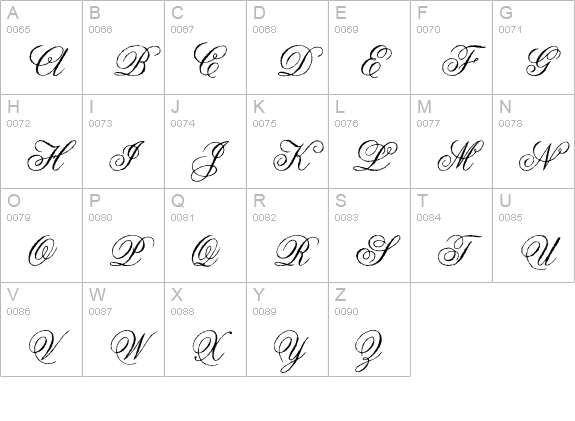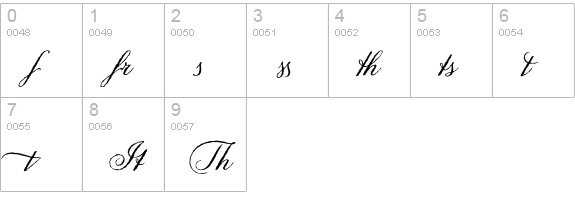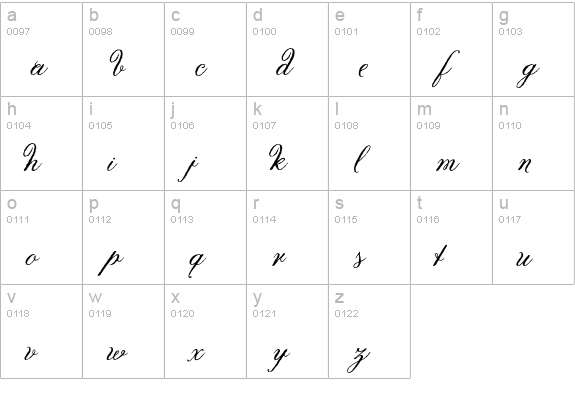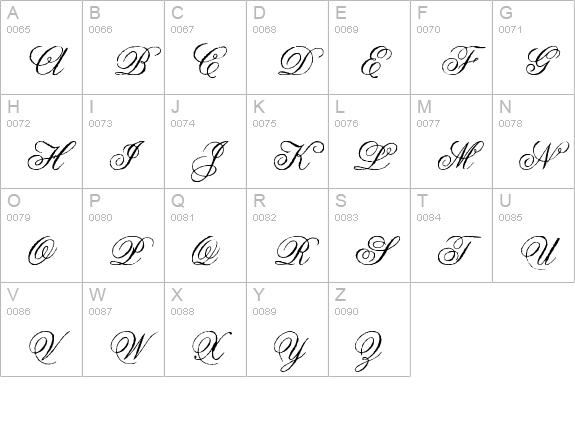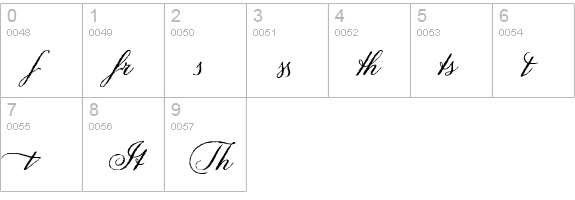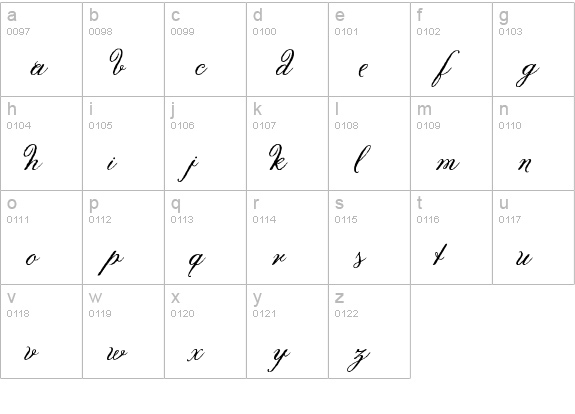
AngliaOldeEnhancements Font Details
AngliaOldeEnhancements font is a stunning display typeface that exudes a timeless elegance and vintage charm. Inspired by traditional calligraphy, this font features intricate details and ornate flourishes that add a touch of sophistication to any design project. The classic yet versatile nature of AngliaOldeEnhancements makes it perfect for various applications, from invitations and branding to packaging and signage. What sets AngliaOldeEnhancements apart is not just its exquisite design, but also the fact that it is available for free download at FontsMarket.com. This means you can easily access this beautiful font to elevate your creations without any cost. Embrace the beauty of AngliaOldeEnhancements and add a touch of old-world charm to your designs today!